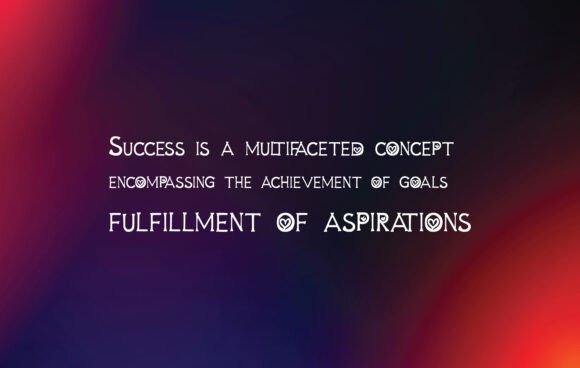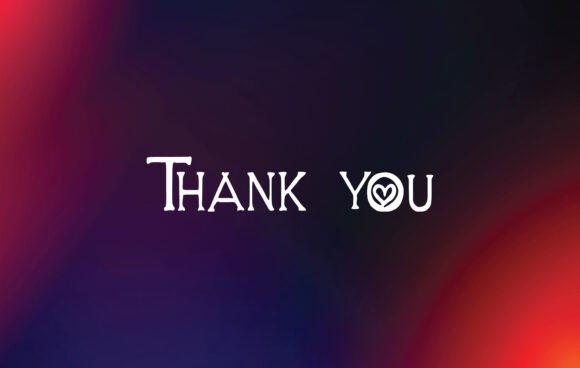
The Emryn Font: A Designer’s New Best Friend
I still remember the frustration of working on a project, pouring my heart and soul into every detail, only to get stuck on one thing: finding the perfect font. It was for a client’s branding project, and I needed something that would capture the essence of their business – elegant, yet playful; professional, yet approachable. That’s when I stumbled upon the Emryn font, and let me tell you, it was love at first sight! 💕
An Honest Review of Emryn Font
What I Love About Emryn ✨
- 💫 Emryn is a lovely and beautiful handwritten font that adds a touch of elegance to any design project.
- ✅ Its versatility makes it perfect for a wide range of applications, from logos and branding to quotes and social media graphics.
- 🌈 The font’s unique character and charm make it stand out from more generic fonts, giving your designs a distinctive look.
- 🔍 Emryn’s readability is excellent, making it suitable for both headings and body text.
- ⚠️ While Emryn is a beautiful font, it may not be the best choice for very long blocks of text, as its handwritten nature can be tiring to read.
- ⚠️ Some users may find that the font’s limited availability of weights restricts its use in certain design applications.
- Experiment with OpenType features like ligatures and stylistic alternates to add more flair to your text.
The Story Behind Emryn Font
Emryn font was designed with the goal of creating a unique, handwritten font that would capture the essence of elegance and sophistication. The designer drew inspiration from classic calligraphy and modern typography, resulting in a font that is both timeless and contemporary.
| Font Name | Emryn Font |
| Author | moonlight craft |
Q: What is Emryn font best used for?
A: Emryn font is best used for designs that require a touch of elegance and sophistication, such as logos, branding, and quotes.
Q: Is Emryn font suitable for body text?
A: While Emryn font is readable, it’s best suited for headings and short blocks of text. For longer blocks of text, a more traditional font may be more suitable.